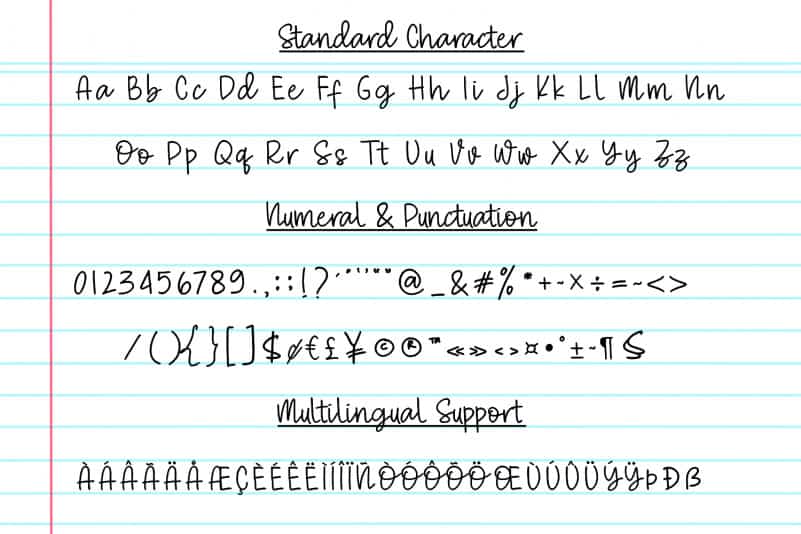
Farmgarden Handwritten Font is a sweet and friendly handwritten font. Its natural and unique style makes it incredibly fitting to a large pool of designs. The only limit is your imagination! Use Farmgarden Handwritten Font for any crafting project that requires a personalized look!